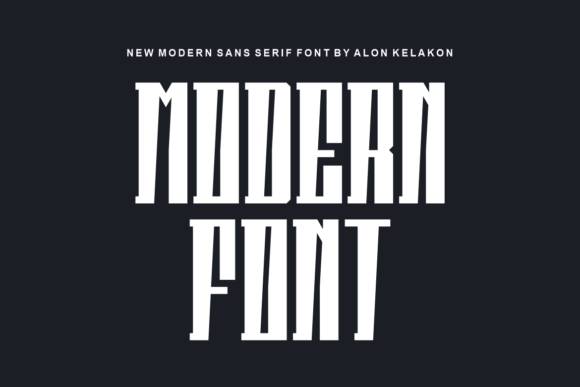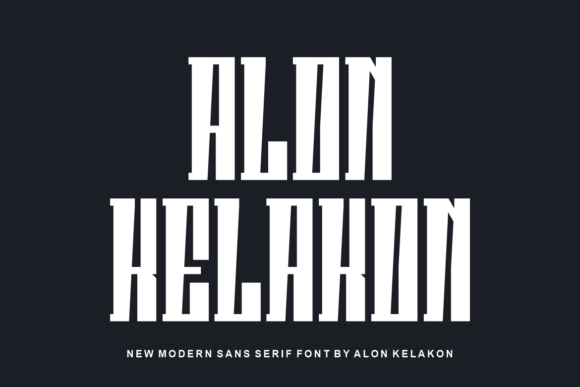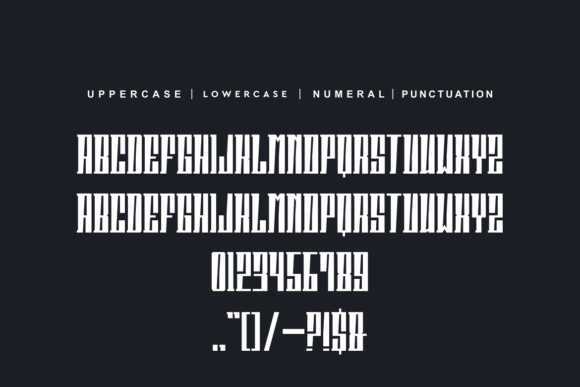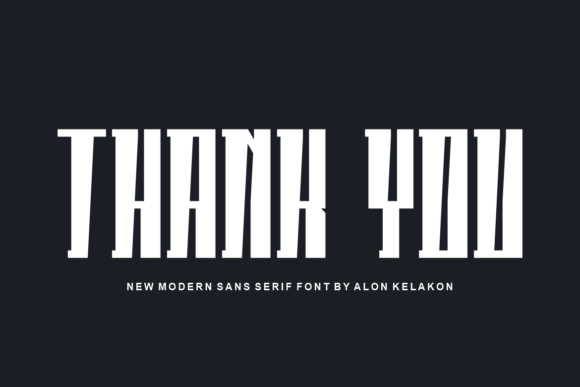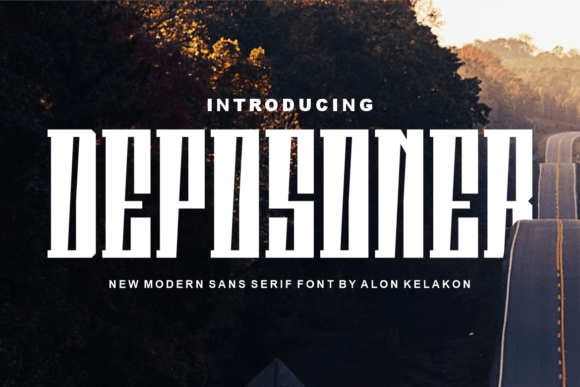
Introducing Deposoner Font: Elevate Your Designs with a Modern and Cool Display Font
In the world of design, typography plays a crucial role in conveying messages, expressing creativity, and capturing the audience’s attention. A font can make or break a design, and that’s where Deposoner Font comes into play. Deposoner is a modern and cool display font that has been making waves in the design community, and for good reason. In this article, we’ll dive into the features, benefits, and uses of Deposoner Font, and explore how it can become a valuable asset to your font library.
A Modern and Cool Display Font
Deposoner Font is a sleek and contemporary display font that boasts a unique and stylish aesthetic. Its modern design makes it perfect for a wide range of applications, from branding and advertising to packaging and digital media. The font’s clean lines, elegant curves, and precise craftsmanship make it stand out from the crowd, giving your designs a professional and polished look.
One of the key benefits of Deposoner Font is its versatility. Whether you’re working on a project for a fashion brand, a tech startup, or a food blog, this font can adapt to any topic or theme. Its neutral yet stylish design allows it to blend seamlessly into various contexts, making it an excellent addition to your font library. With Deposoner Font, you can create stunning headlines, eye-catching titles, and captivating text that will leave a lasting impression on your audience.
Enhance Your Creations with Deposoner Font
Deposoner Font has the potential to elevate any creation, from simple text-based designs to complex visual projects. Its modern and cool aesthetic can add a touch of sophistication and elegance to your work, making it perfect for designers and crafters who want to push the boundaries of their creativity. With Deposoner Font, you can:
- Create stunning posters, flyers, and brochures that grab attention
- Design captivating social media graphics, banners, and ads
- Develop beautiful branding materials, including logos, business cards, and letterheads
- Enhance your website’s typography and user experience
Why Choose Deposoner Font?
So, what sets Deposoner Font apart from other display fonts on the market? Here are just a few reasons why designers and crafters love working with Deposoner Font:
- Unique and stylish design: Deposoner Font boasts a distinctive and modern aesthetic that will make your designs stand out.
- High-quality craftsmanship: The font is meticulously crafted to ensure precise lines, elegant curves, and a professional finish.
- Versatility: Deposoner Font can be used in a wide range of applications and contexts.
- Ease of use: The font is easy to read and works well in both digital and print formats.
Tips for Using Deposoner Font
To get the most out of Deposoner Font, here are a few tips to keep in mind:
- Experiment with font sizes: Deposoner Font looks great in large display sizes, but it can also be used for smaller text sizes.
- Play with font combinations: Pair Deposoner Font with other fonts to create stunning contrast and visual interest.
- Pay attention to spacing: Make sure to adjust the spacing between letters and lines to ensure optimal readability.